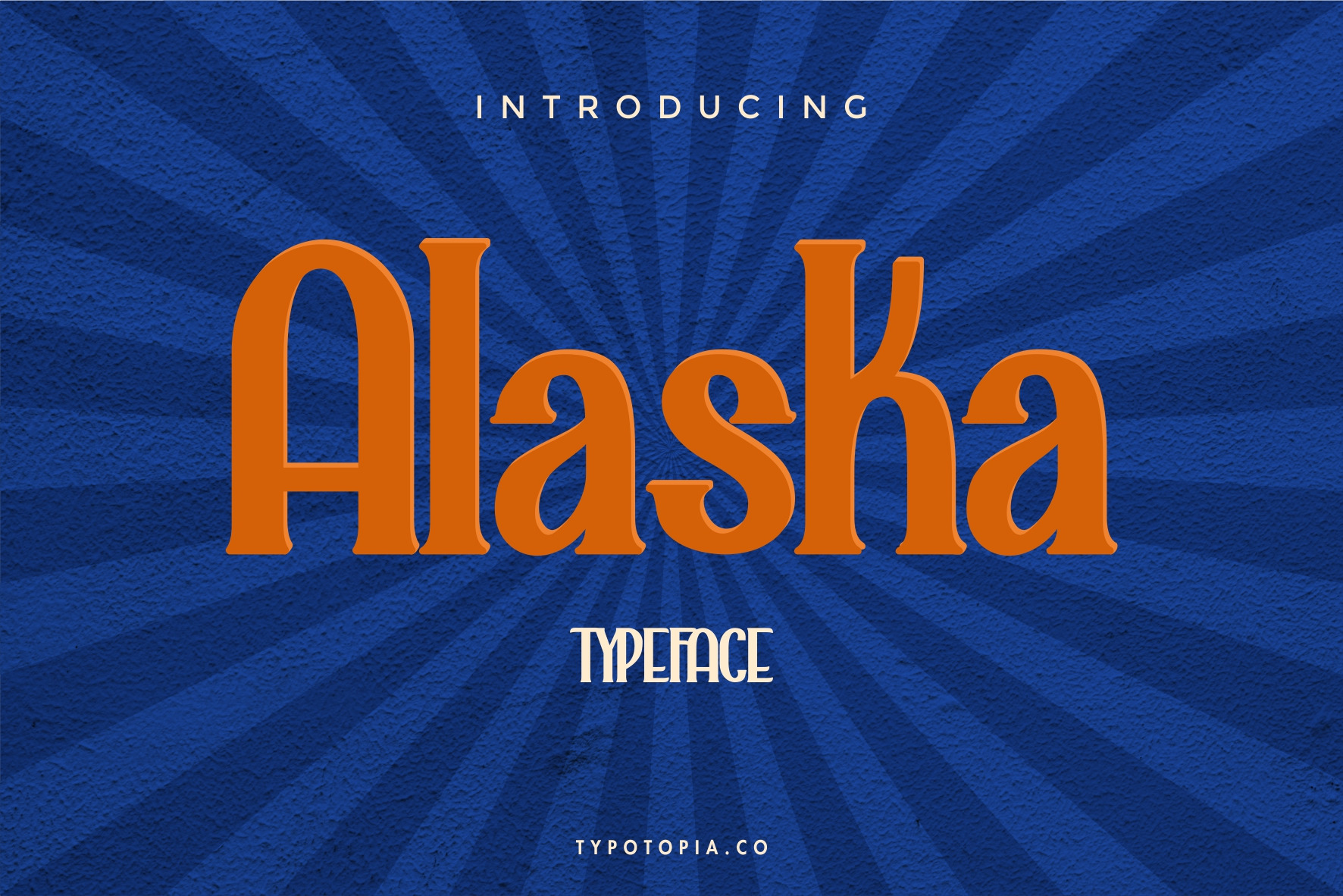
Alaska Typeface
Alaska Typeface come with modern vintage look design styles. This lovely font would be perfect to combine in your design. Suitable for digital lettering, logo, t-shirt, print, business cards, branding materials, quotes, nature photography, etc, made with hand painted and carefully crafted.
- Uppercase & Lowercase letters